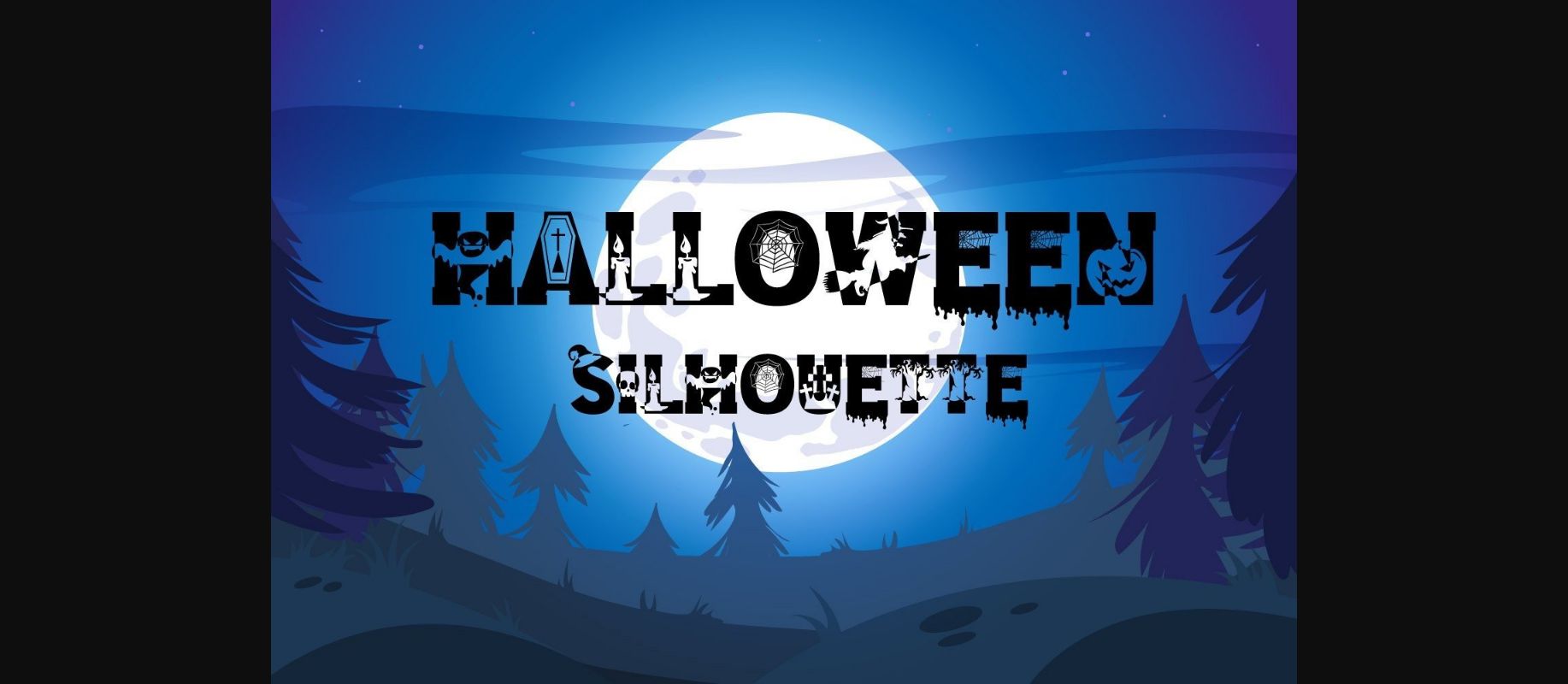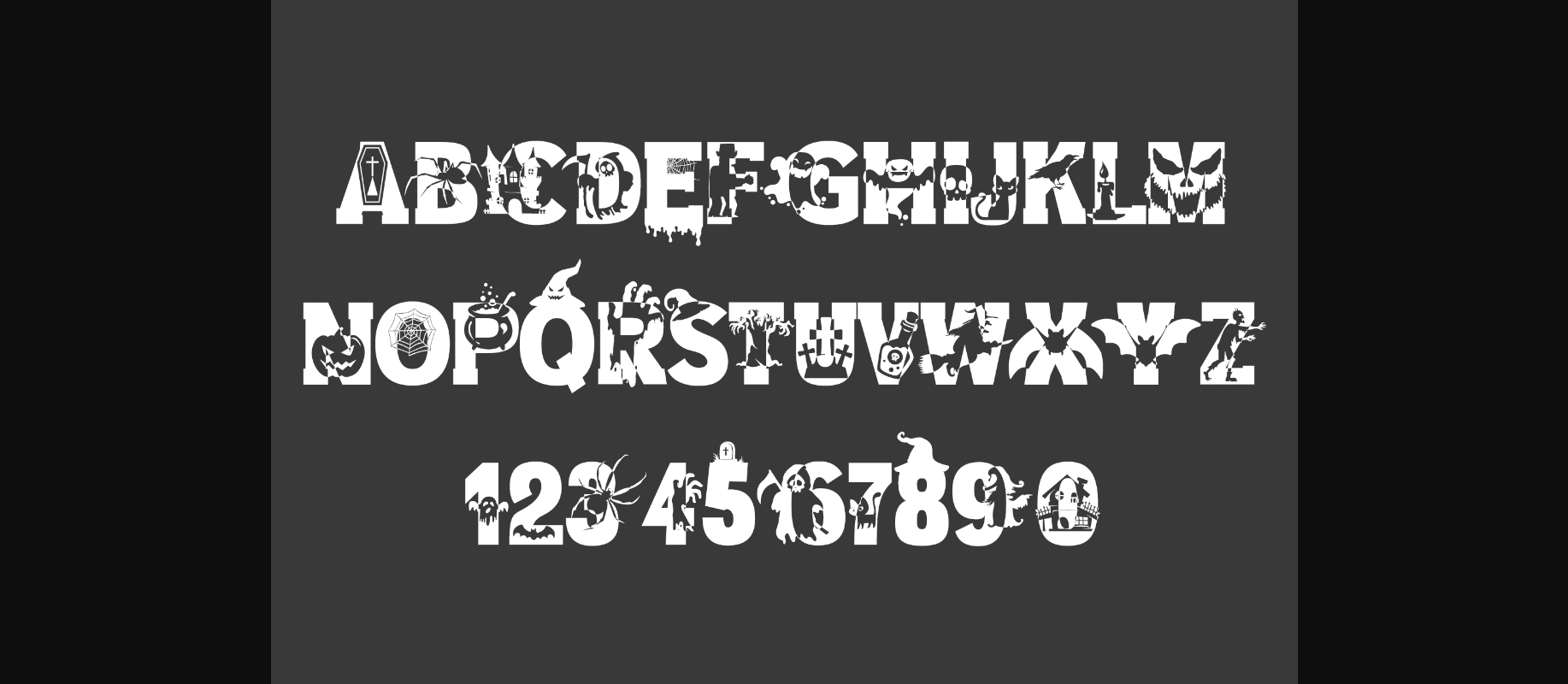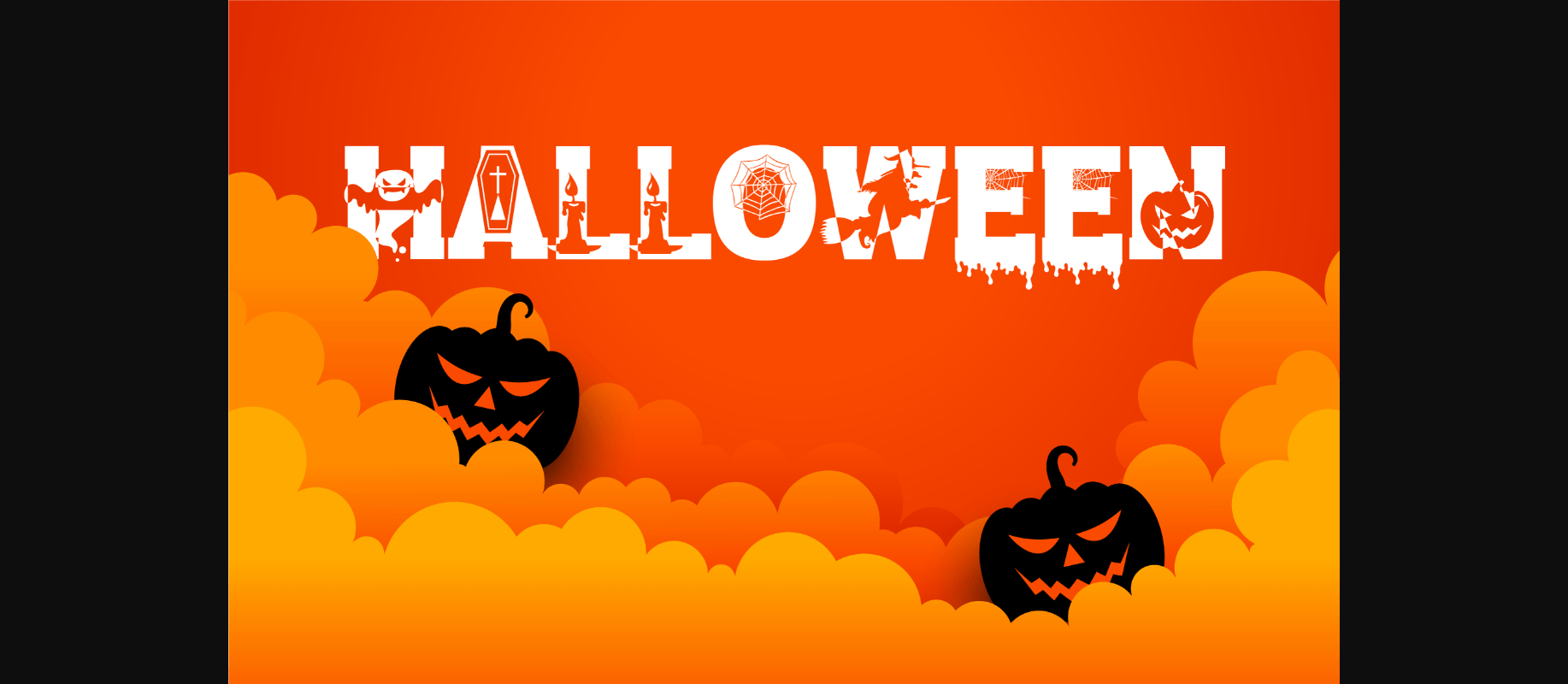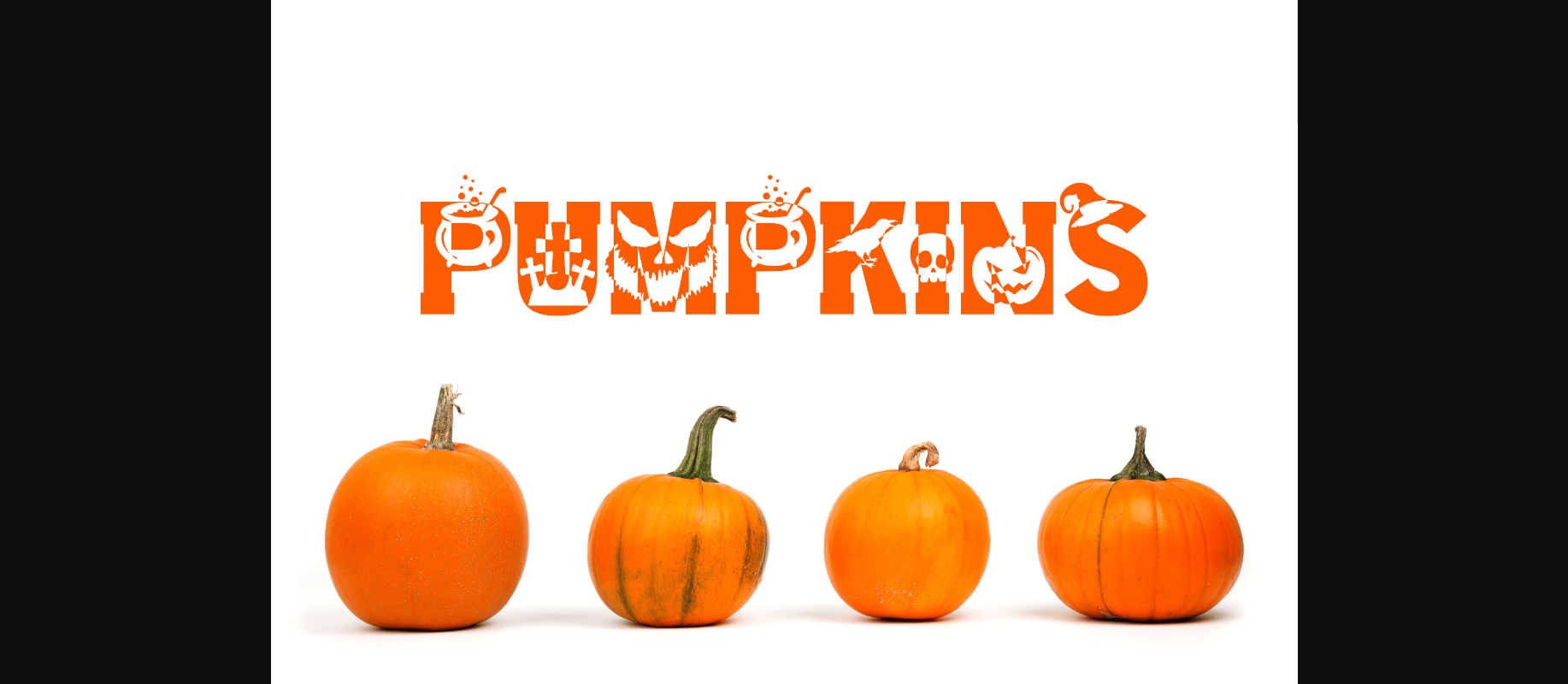
About Halloween Silhouette Font
Halloween Silhouette is the perfect way to add some spooky fun to your Halloween projects! This fun and festive decorative font feature a variety of Halloween-themed silhouettes, from ghosts and zombies to witches and bats. Halloween Silhouette features spooky letters that are perfect for creating invitations, decorations, and more…